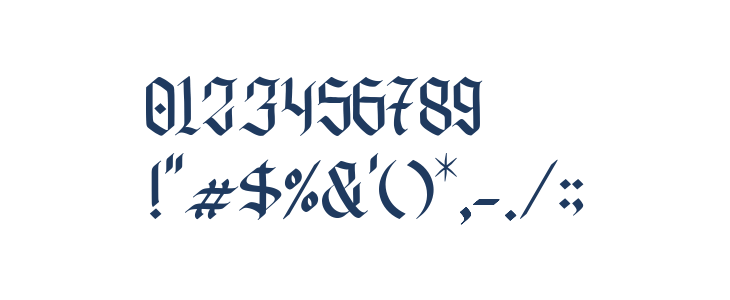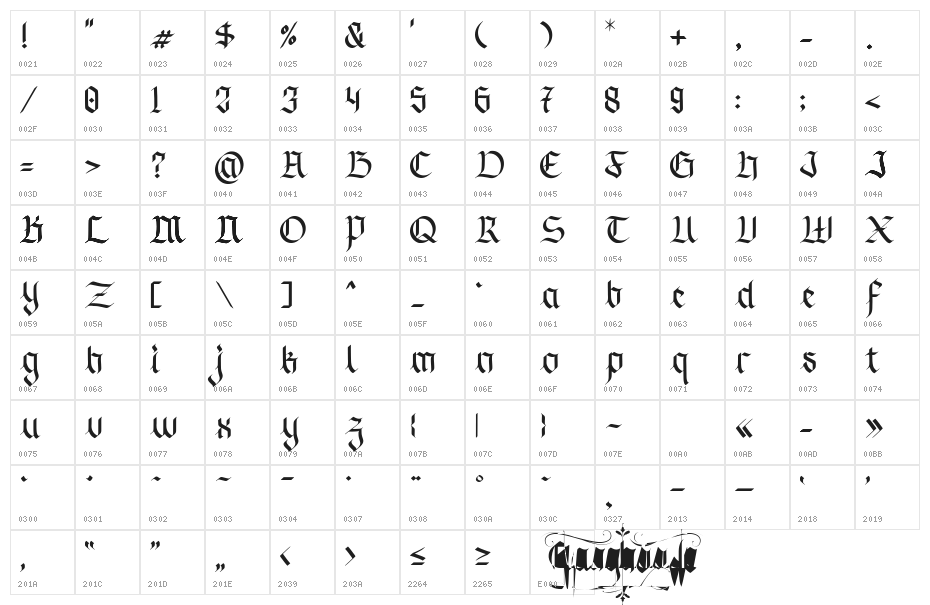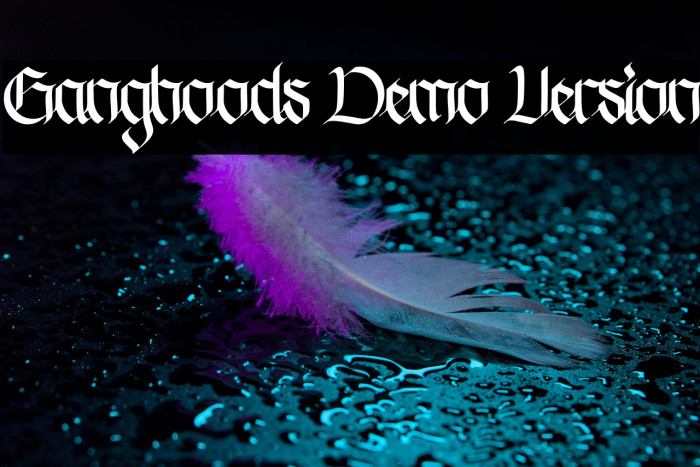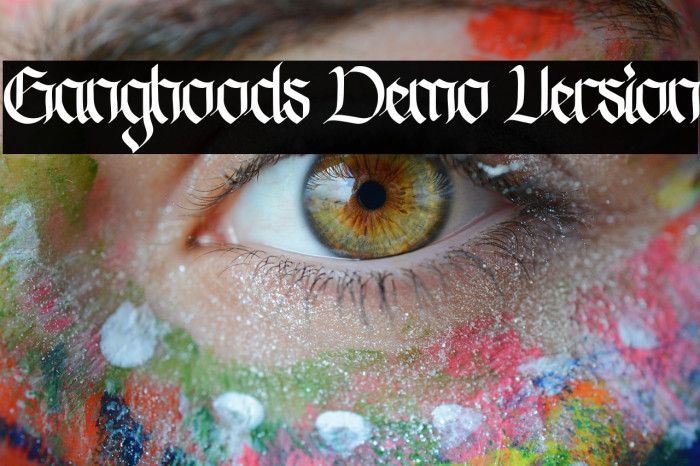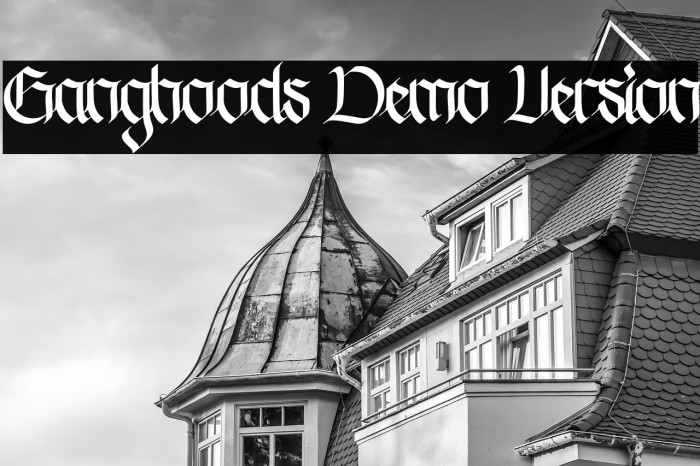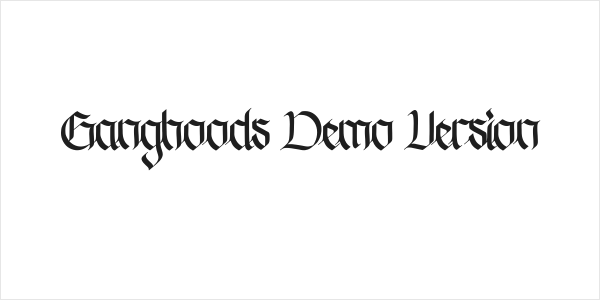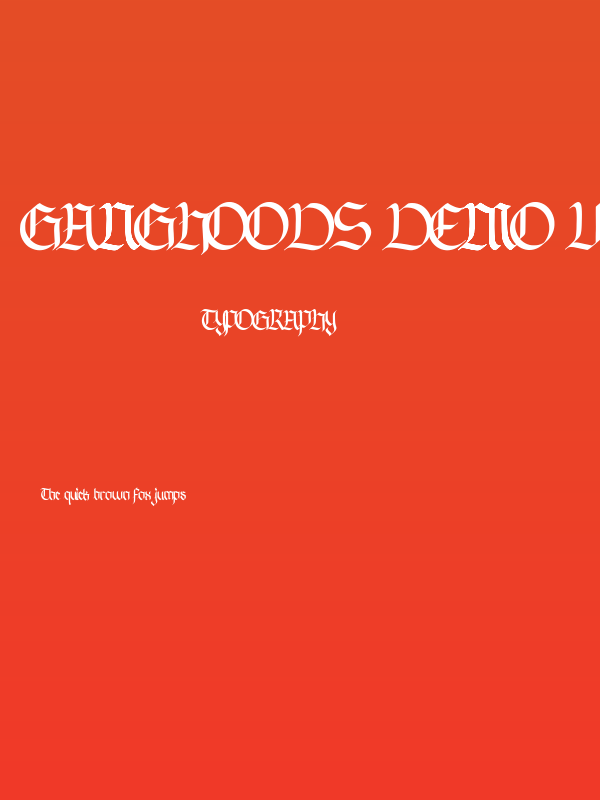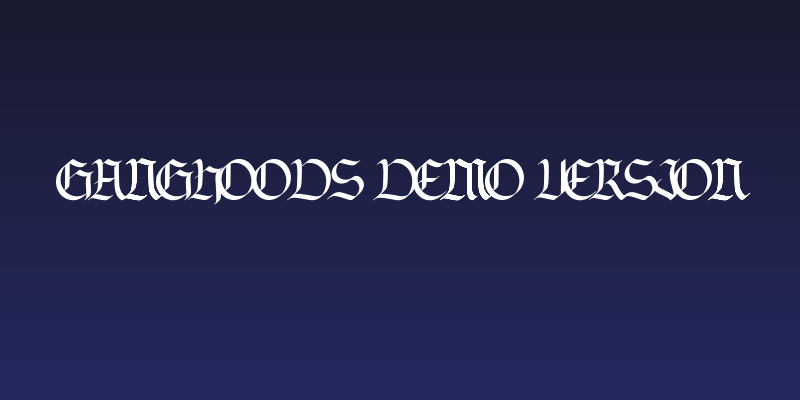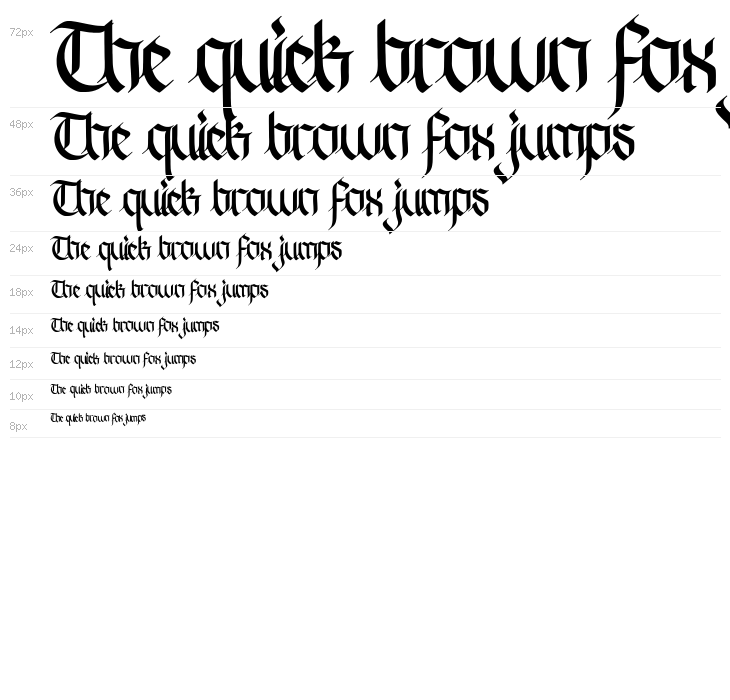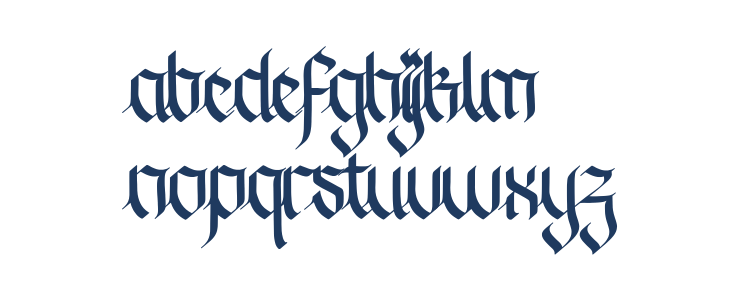
Ganghoods Demo Version Font
Ganghoods Demo Version Description
This font features a bold and dramatic blackletter style, characterized by its sharp, angular lines and intricate detailing. The uppercase letters exhibit a strong presence with their tall, narrow forms and pointed serifs, while the lowercase letters maintain a consistent flow with their connected strokes and elaborate flourishes. The numerals and special characters are equally ornate, adding to the overall gothic aesthetic. The font's high contrast between thick and thin strokes enhances its visual impact, making it suitable for designs that require a historical or medieval touch.
| Overall Style | Gothic |
| Proposed Projects | Ideal for tattoo designs, gothic-themed posters, album covers, and historical event invitations. |